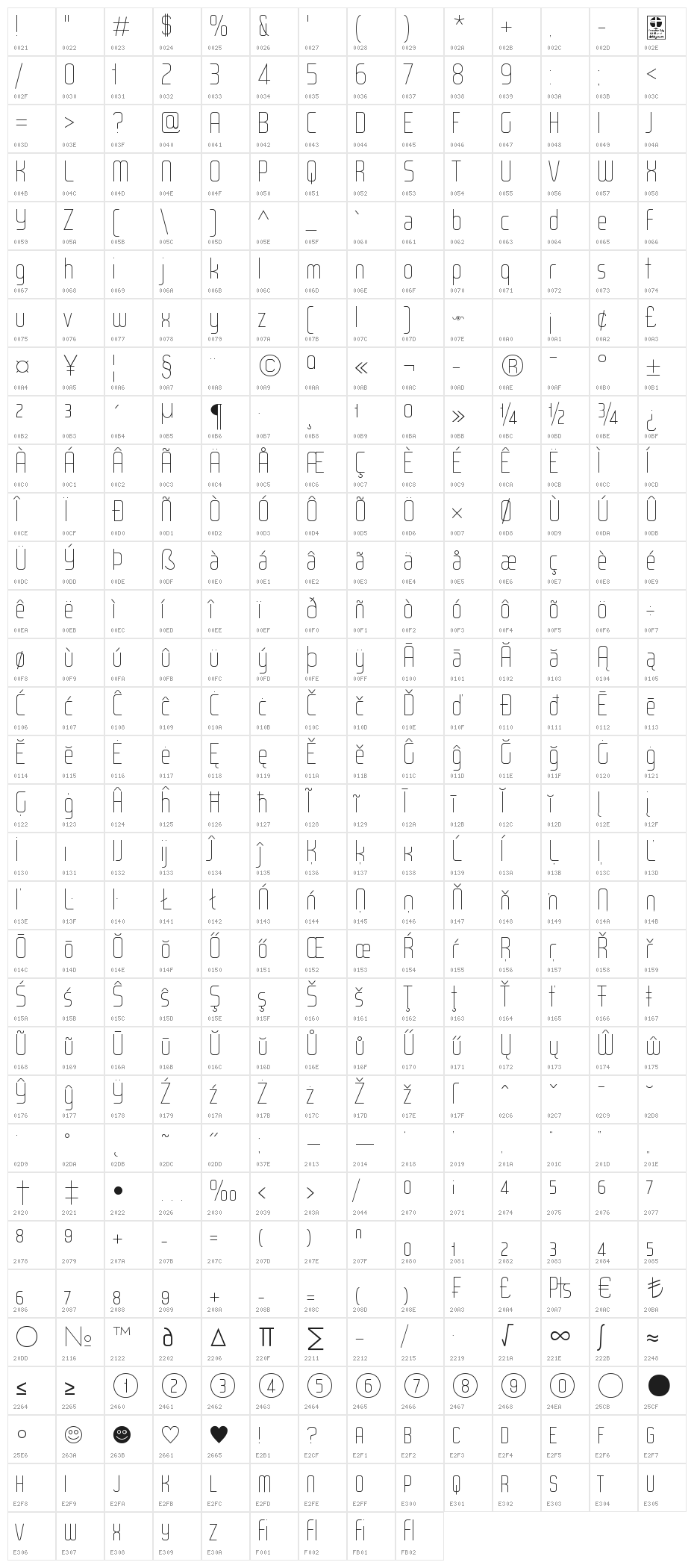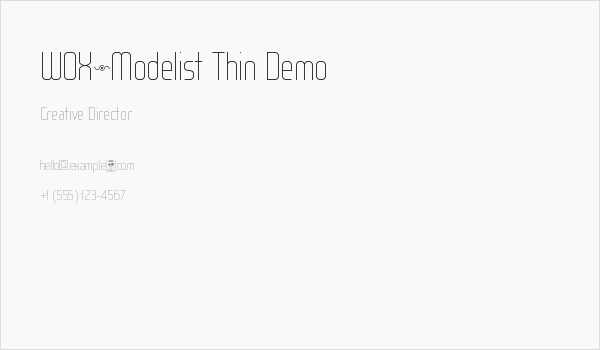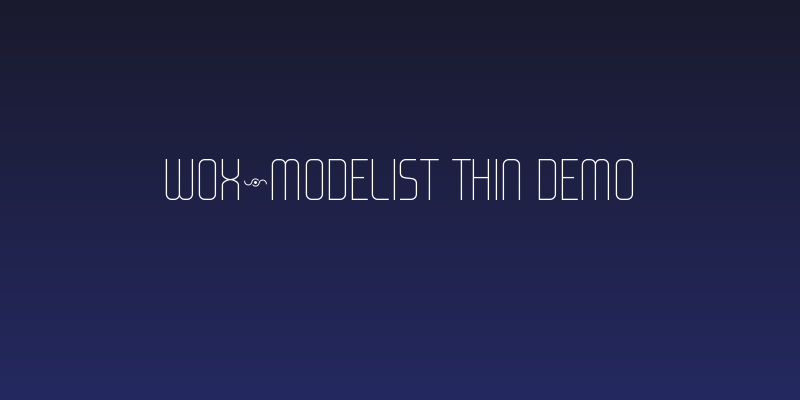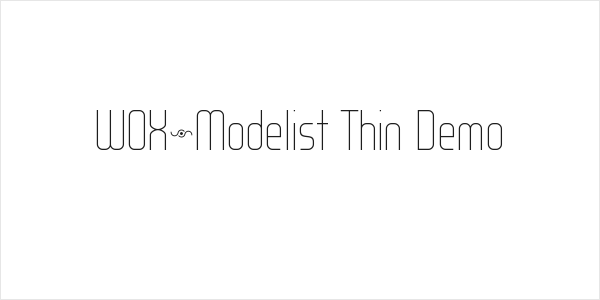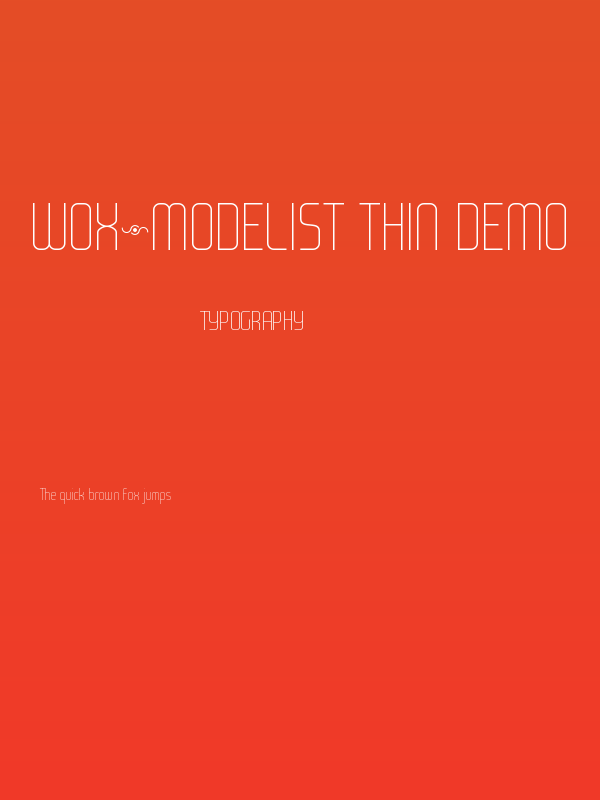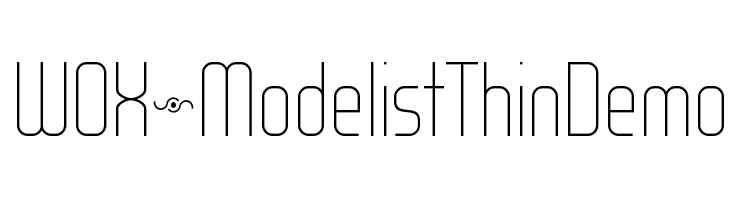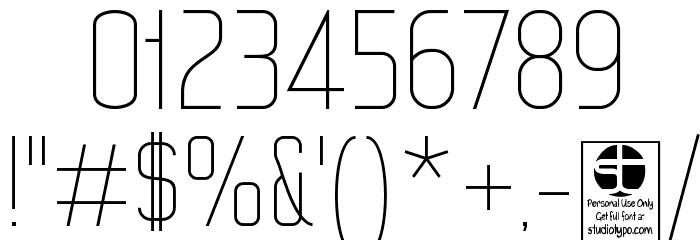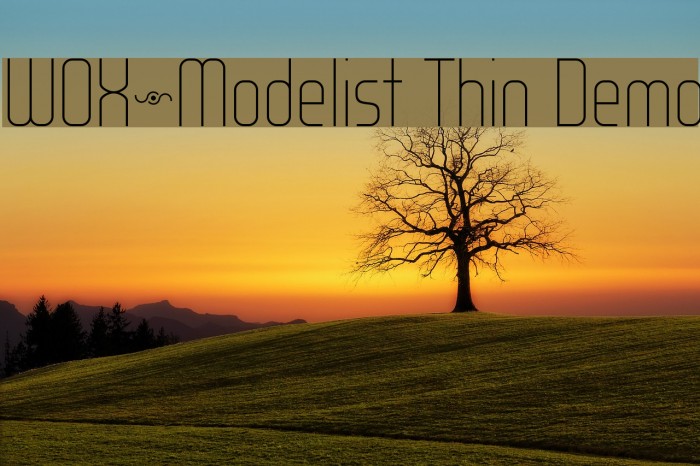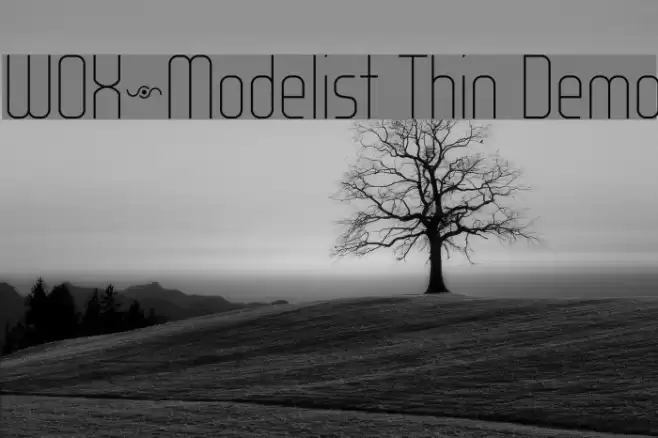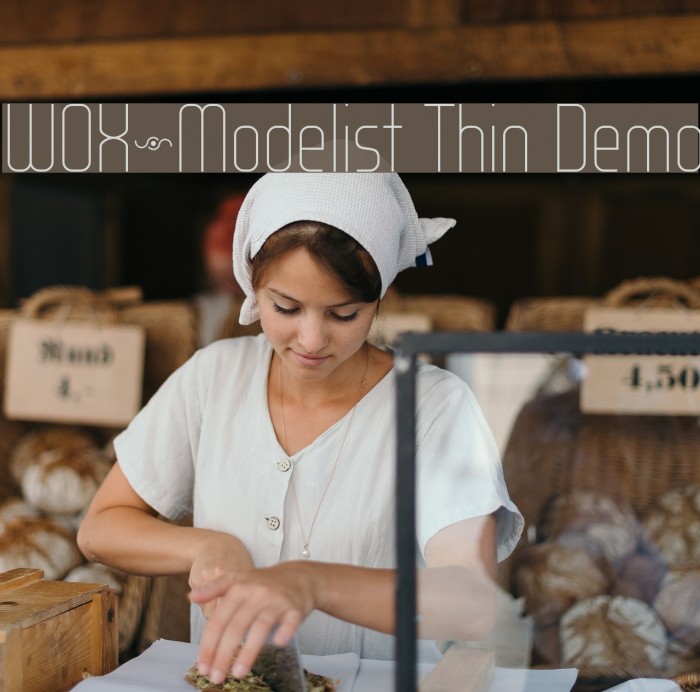
WOX~Modelist Thin Demo Font
WOX~Modelist Thin Demo Description
This font features a sleek, ultra-thin design with a modern and minimalist aesthetic. The characters are elongated and have a geometric structure, giving them a futuristic and clean appearance. The uppercase and lowercase letters maintain a consistent height, contributing to a uniform look. The numerals and special characters are designed with the same thin strokes, ensuring a cohesive style throughout. This font is ideal for projects that require a contemporary and elegant touch, such as tech branding, modern advertising, or minimalist design projects.
| Proposed Projects | Ideal for tech branding, modern advertising, minimalist design projects, and futuristic themes. |